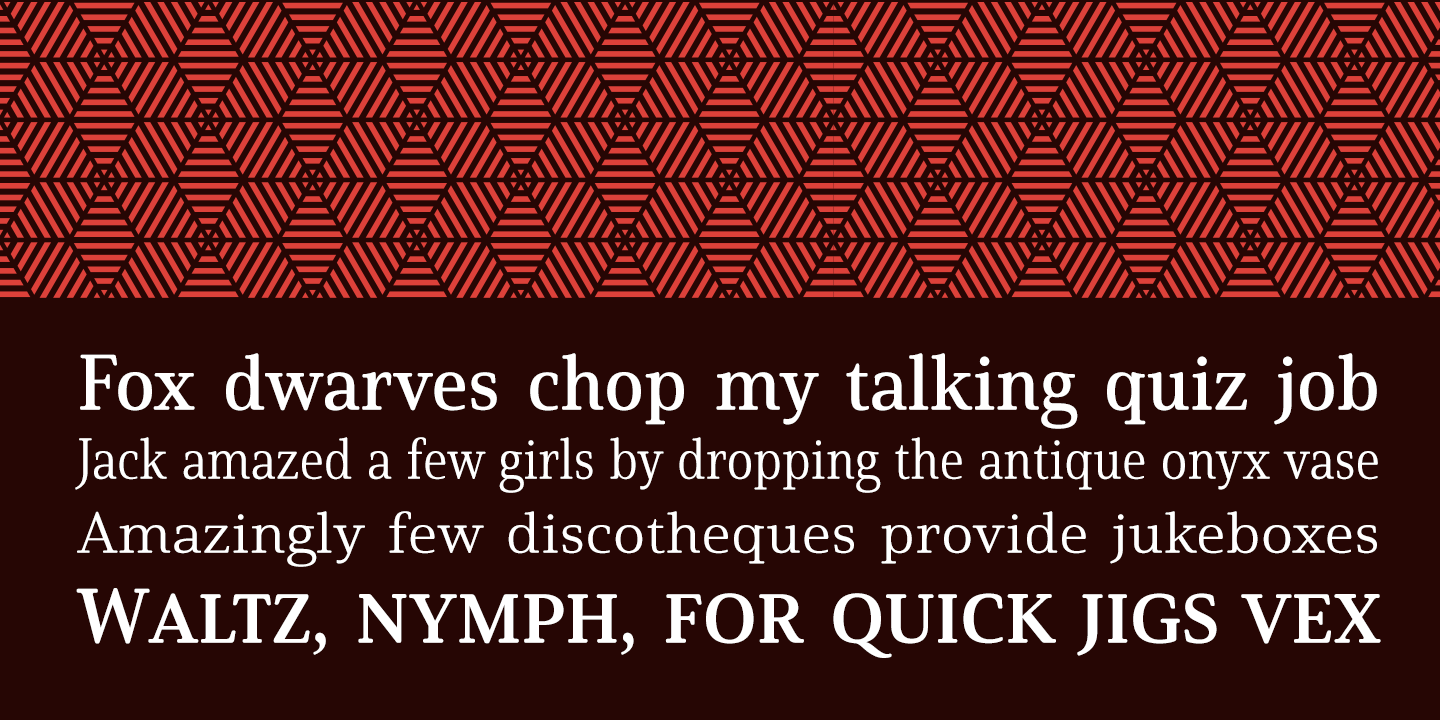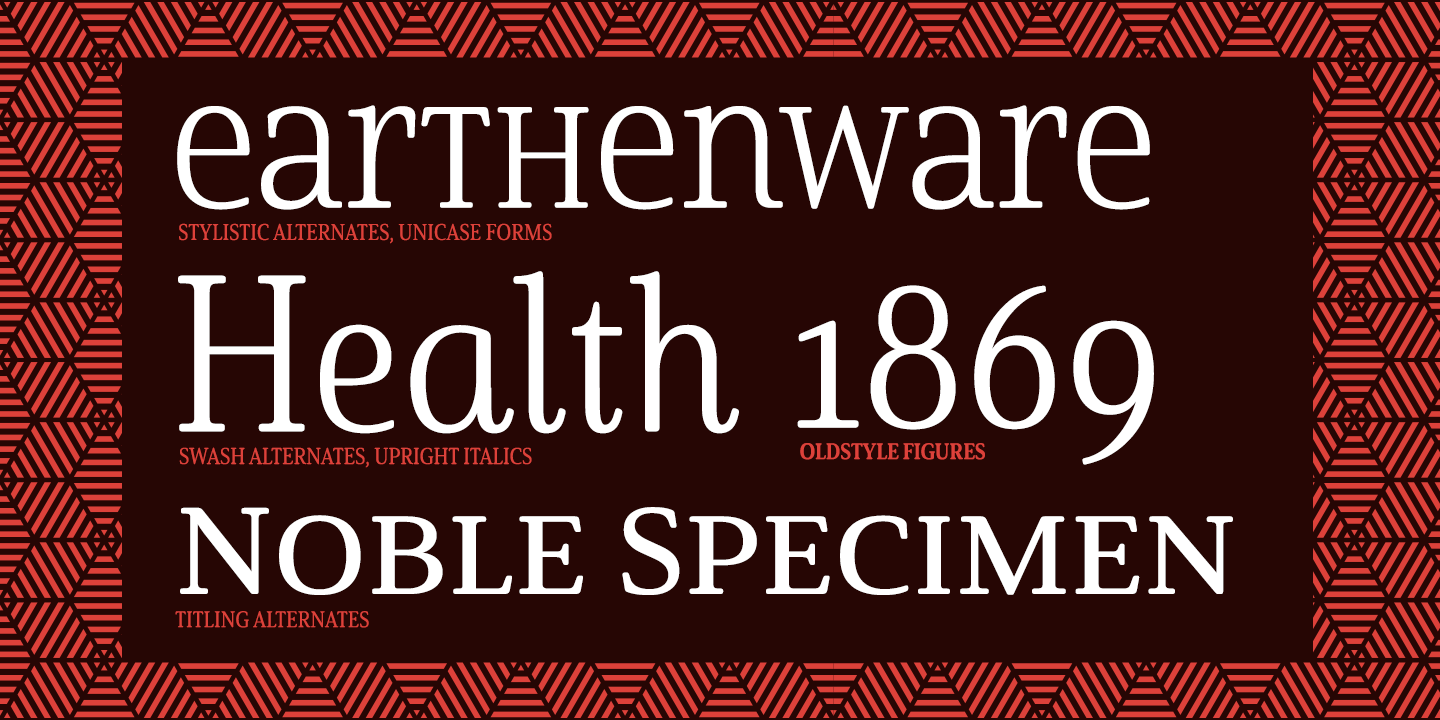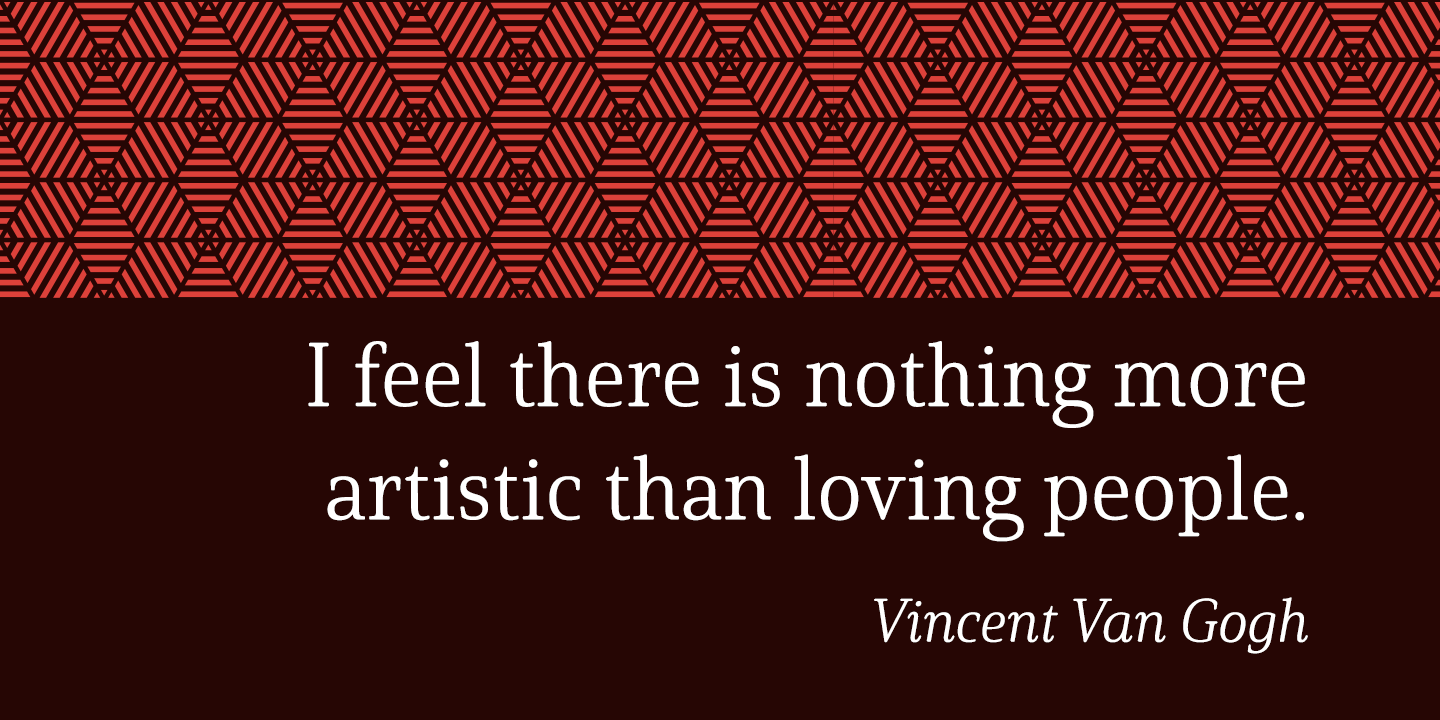
About Solitas Serif
Say it softer with Solitas Serif. Perfect for the designer needing a serif without the stiffness, Solitas Serif will turn your reader\’s eye with its slight serifs and rounded corners. This softer version of the curves found in Solitas and Solitas Slab…